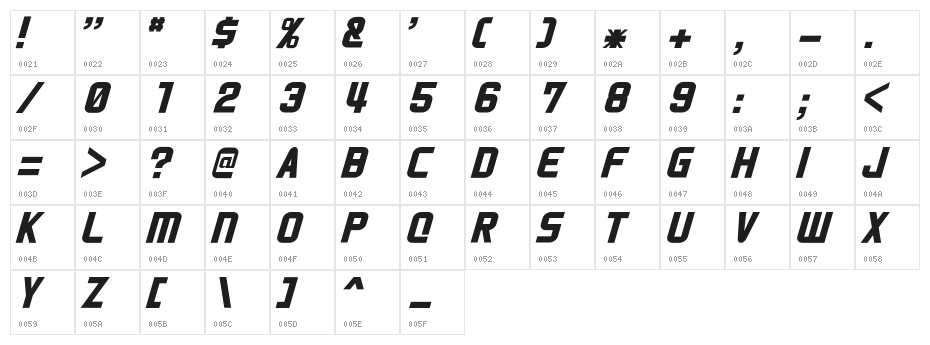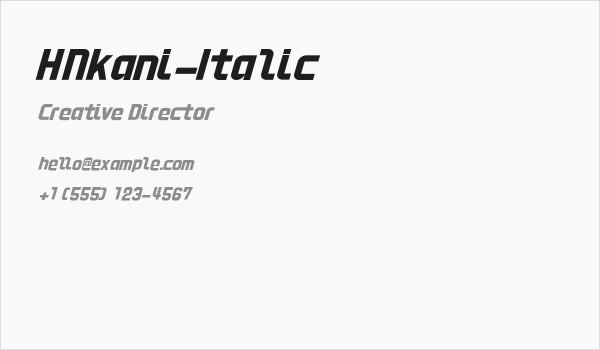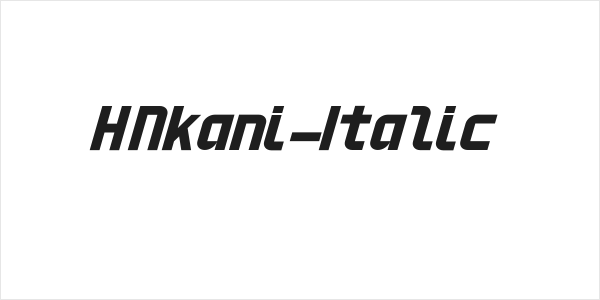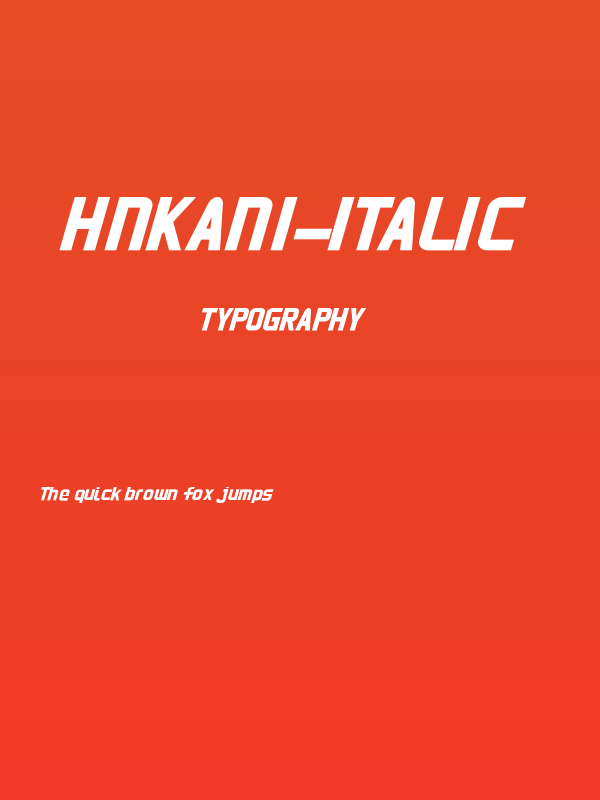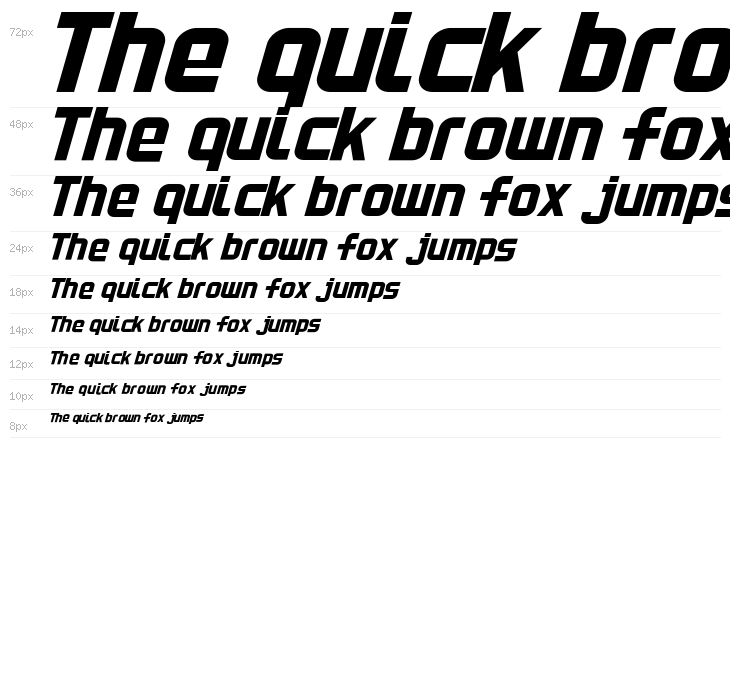
HNkani-Italic Font
HNkani-Italic Description
This font features a dynamic and modern design with a strong italic slant, giving it a sense of motion and energy. The characters are bold and slightly condensed, with a consistent stroke width that adds to its robust appearance. The uppercase and lowercase letters maintain a uniform style, with rounded edges that soften the overall look. The numerals and special characters are designed to match the alphabetic characters, ensuring a cohesive appearance across all text. This font is well-suited for projects that require a contemporary and assertive typeface.
Proposed ProjectsIdeal for sports branding, dynamic advertising, modern logos, and attention-grabbing headlines.